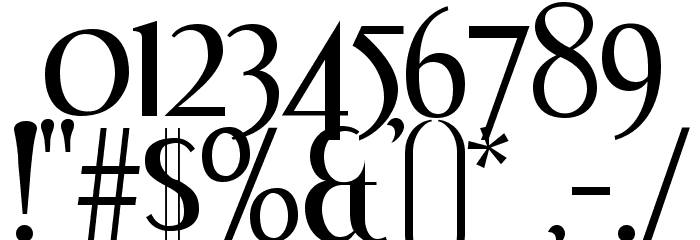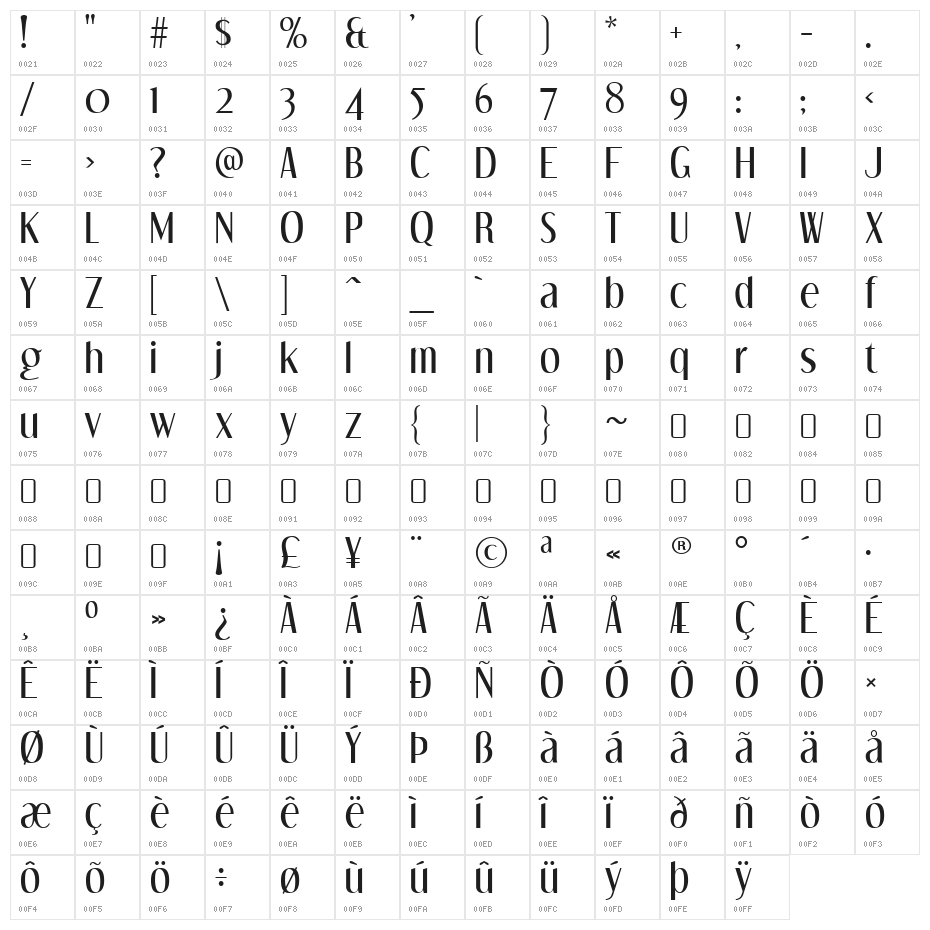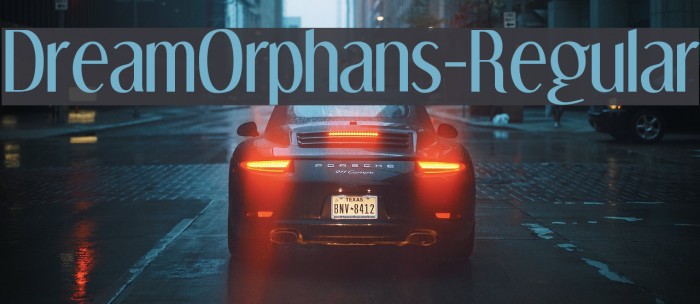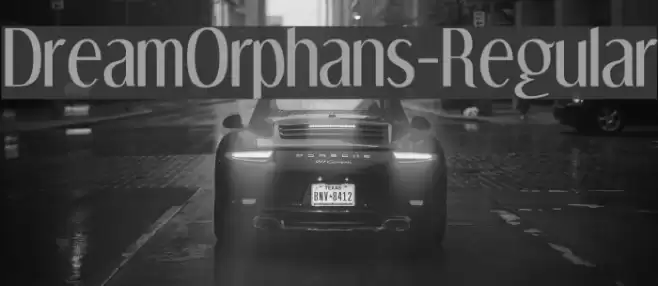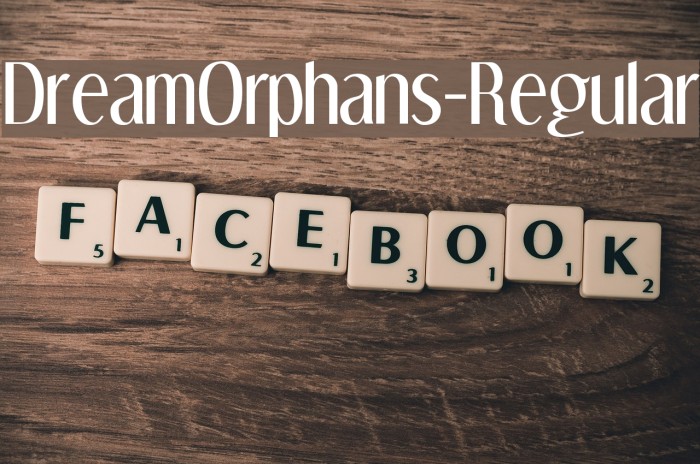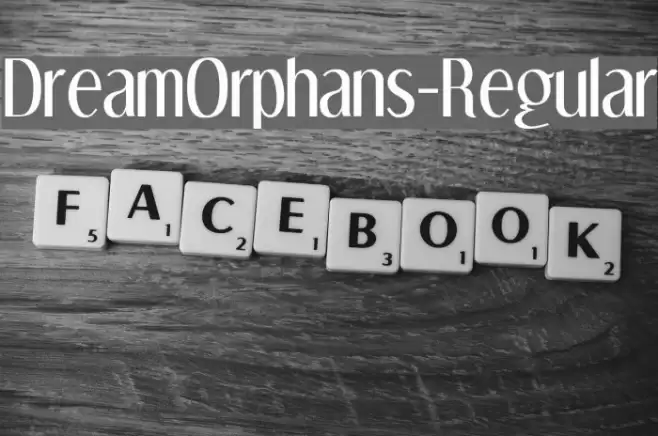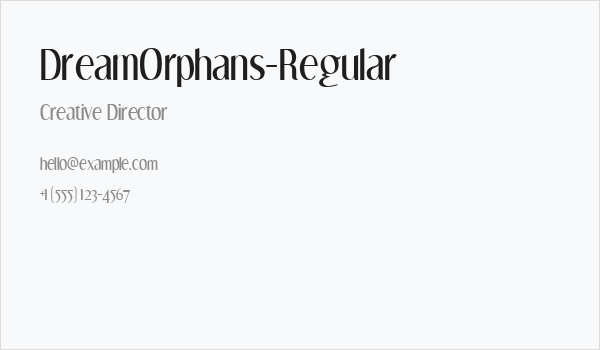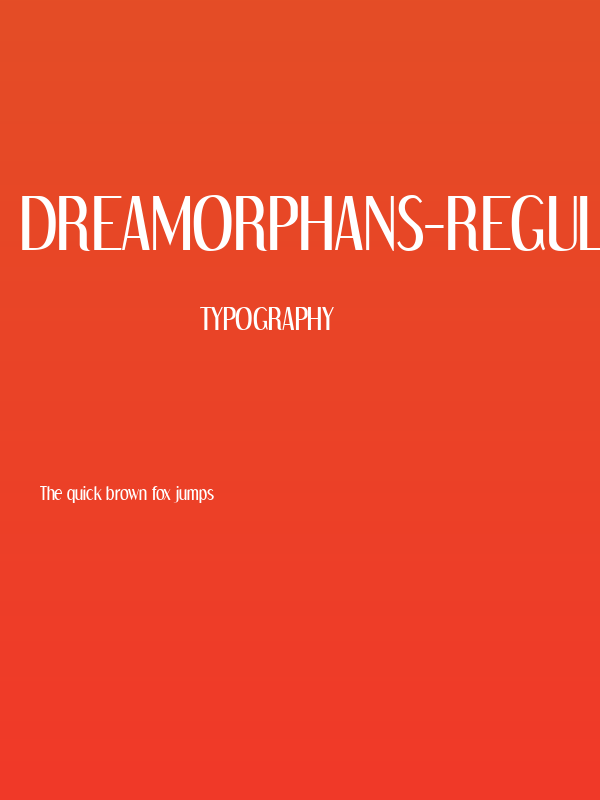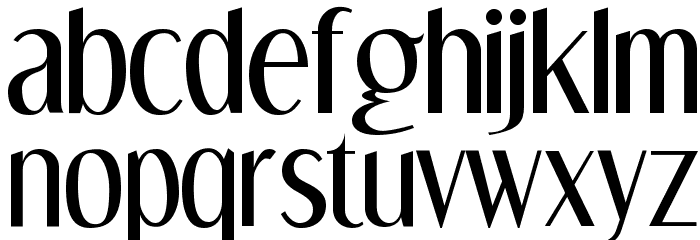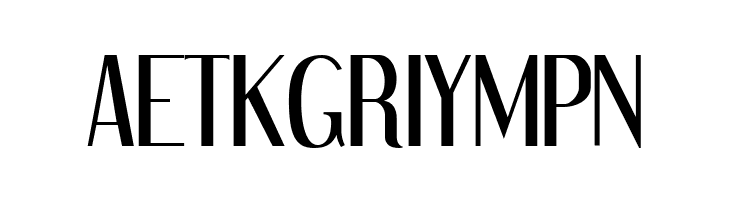
DreamOrphans-Regular Font
DreamOrphans-Regular Description
This font features a modern and elegant design with a high contrast between thick and thin strokes. The uppercase letters are tall and slender, while the lowercase letters maintain a consistent style with unique curves and angles, particularly noticeable in characters like 'g' and 'e'. The numerals are distinct and align well with the overall aesthetic, providing a cohesive look. Special characters are thoughtfully designed, adding to the font's versatility. The overall style is sophisticated, making it suitable for a variety of design projects.
| Proposed Projects | Ideal for branding, editorial design, and high-end product packaging. |